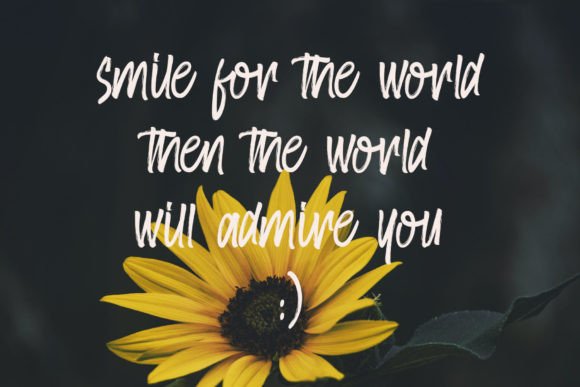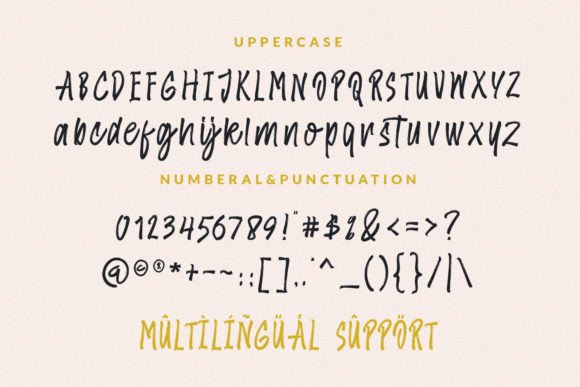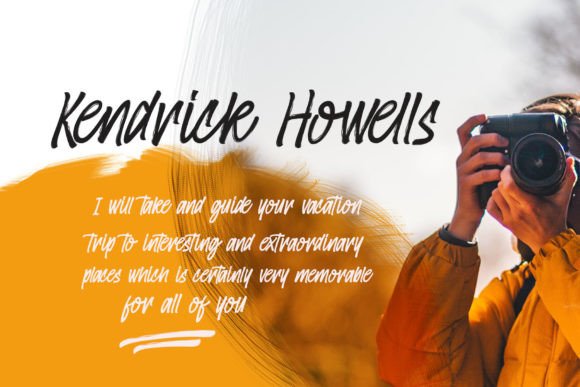
Discover the Unique Charm of Amsterbrush Font: Elevate Your Designs with Elegance
In the world of typography, fonts play a crucial role in conveying messages, evoking emotions, and creating lasting impressions. For designers and crafters seeking a distinctive and elegant handwritten font, Amsterbrush Font stands out as an exceptional choice. Designed with meticulous care, Amsterbrush ensures a smooth connection between all possible character combinations, making it ideal for a wide range of applications.
The Making of Amsterbrush Font
Amsterbrush Font was crafted with precision to provide a seamless typing experience. Its creator carefully designed the font to ensure that the connection between characters is smooth and natural, giving it a unique and amazing handwritten feel. This attention to detail makes Amsterbrush stand out from other fonts, especially in text and display settings.
Ideal for Advertising and Packaging
Amsterbrush Font is particularly well-suited for advertising and packaging, where making a strong visual impact is crucial. Its elegant and distinctive style can elevate brand identities, making products stand out on store shelves and in marketing materials. Whether used for logos, labels, or promotional materials, Amsterbrush adds a touch of sophistication and class.
The versatility of Amsterbrush Font is one of its most compelling features. It is suitable for a myriad of design applications, including:
- Titles and signatures: Add a personal touch to your documents and artworks.
- Logos: Create memorable brand identities with a distinctive handwritten feel.
- Invitations and greeting/wedding cards: Impress your guests with elegant and personalized invitations.
- Labels and packaging: Stand out in the market with unique and attractive packaging designs.
- Magazines and books: Enhance the readability and aesthetic appeal of your publications.
- Fashion and make-up: Perfect for branding and promotional materials in the fashion industry.
- Stationery and novels: Add a touch of elegance to your stationery and literary works.
Why Choose Amsterbrush Font?
Choosing Amsterbrush Font for your design projects comes with numerous benefits:
- Unique and Amazing Handwritten Style: Stand out with a font that offers a fresh and distinctive look.
- Smooth Character Connections: Enjoy a natural flow in your text, making it more readable and visually appealing.
- Elegance and Versatility: Suitable for a wide range of applications, from formal to informal settings.
- Perfect for Digital and Print: Amsterbrush works beautifully in both digital and print formats, ensuring consistency across different mediums.
Tips for Using Amsterbrush Font Effectively
To maximize the impact of Amsterbrush Font in your designs, consider the following tips:
- Mix and Match: Combine Amsterbrush with other fonts to create contrast and hierarchy in your designs.
- Adjust Size and Color: Experiment with different sizes and colors to emphasize certain elements and create visual interest.
- Play with Ligatures: Take advantage of Amsterbrush’s ligatures to add a more natural and handwritten feel to your text.
Amsterbrush Font is a remarkable addition to any designer’s or crafter’s toolkit. Its unique and elegant handwritten style, combined with its versatility and smooth character connections, makes it an ideal choice for a wide range of applications. Whether you’re working on advertising, packaging, or creative projects, Amsterbrush can help elevate your designs and make them truly unforgettable. Discover the charm of Amsterbrush Font and bring a touch of elegance and sophistication to your next project.